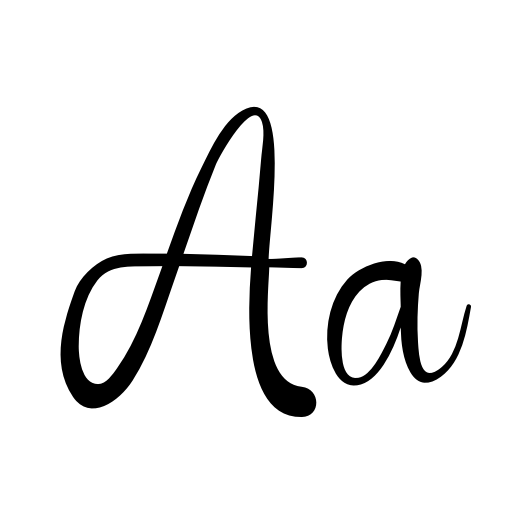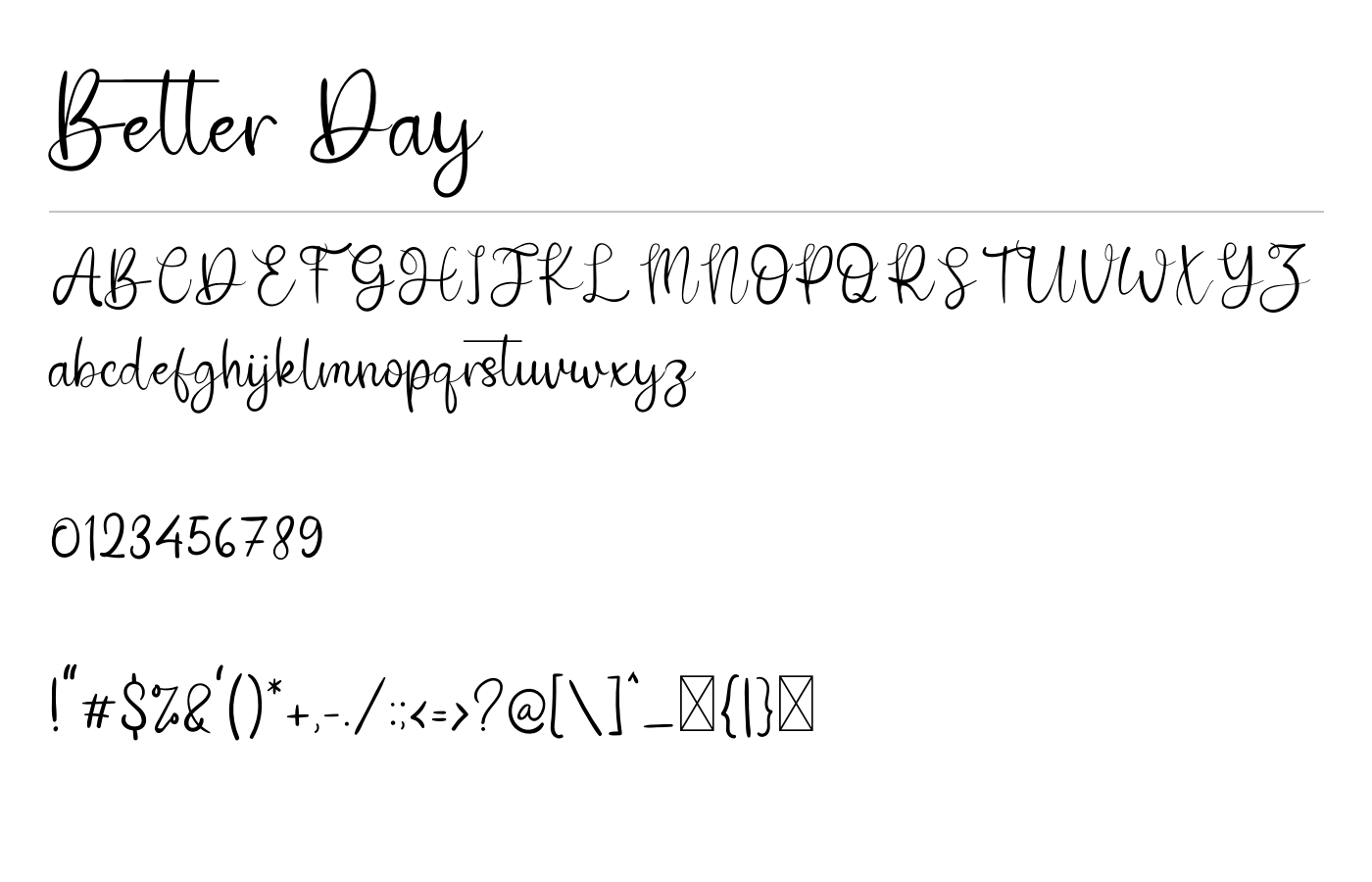
Better Day is a graceful handwritten script font featuring slender, flowing strokes with a casual yet refined feel. Its tall x-height and playful curves make it perfect for adding a personal, friendly touch to invitations, branding, and editorial designs that seek a warm, approachable elegance.
Better Day Font
About Better Day Font